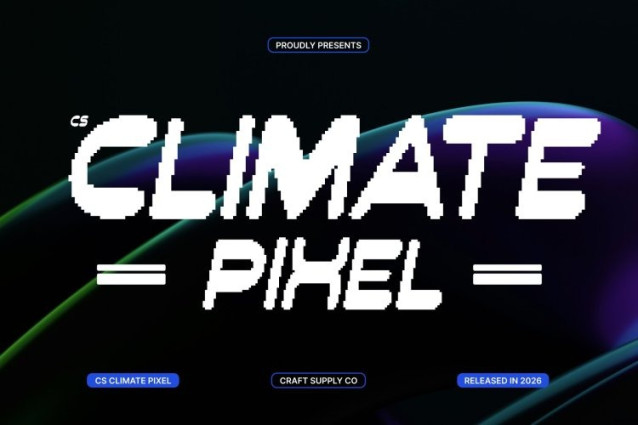
CS Climate Pixel Font
CS Climate Pixel Font This is a reverse contrast sans serif font that blends bold innovation with refined structure, enhanced by a precise pixel-based construction. Its modern yet stylish form commands attention, while the unusual weight distribution introduces a strong visual rhythm. The result is a distinctive typeface that feels confident, contemporary, and unmistakably original.
Rounded Pixel Forms with Modular Balance
Built from rounded edges and modular shapes aligned to a pixel grid, this font creates harmony between bold geometry and smooth curvature. The softened corners bring warmth and approachability to its technical structure, making the font feel both modern and human. This balance gives every composition a clean, rhythmic flow with a strong design presence.
Modern Interpretation of Classic Design Movements
Inspired by mid-century modern and industrial design principles, this font celebrates clarity, function, and visual structure. Its reverse contrast nods to vintage typographic experimentation, while the pixel precision anchors it firmly in contemporary digital aesthetics ideal for editorial layouts, posters, and forward-thinking identity systems.
Perfect for Distinctive Branding, Editorials, and Promotion
Whether applied to brand logos, packaging, visual campaigns, or digital interfaces, this font delivers impact with effortless sophistication. Its versatile character adapts seamlessly across print and screen, ensuring your message stands out with clarity, creativity, and bold modern charm.